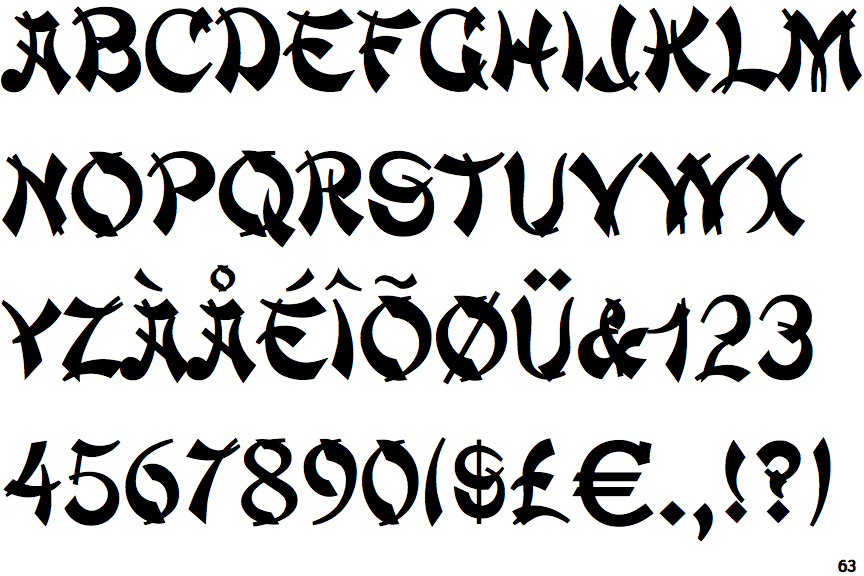
The Beauty Of Mandarin Fonts
Mandarin fonts are some of the most beautiful and elegant typefaces available in the world today. Whether you’re looking for a font to use in a business document or a personal project, Mandarin fonts are sure to make a statement. These fonts are used in almost every language and culture, including Chinese, Japanese, Korean, Thai, and many other Asian languages. The best thing about Mandarin fonts is that they come in a variety of styles, from bold and modern to traditional and classic. As a result, they offer something for everyone!
History of Mandarin Fonts
The origin of Mandarin fonts dates back centuries to the Han Dynasty in China. During this time, the traditional Chinese writing system was developed and became popular. As time went on, various writing styles developed around the world, with different cultures and countries adopting their own unique writing systems. In the 18th and 19th centuries, the Chinese writing system became popular in Europe and the United States, and the modern-day Mandarin font was born.
Features of Mandarin Fonts
Mandarin fonts are known for their beauty and simplicity. They are characterized by sharp, angular lines and small, intricate details. They are also usually quite thin and light, which gives them a delicate and elegant look. Additionally, many Mandarin fonts feature a wide range of characters, including both upper and lowercase letters, numbers, and symbols. These fonts are perfect for both formal and informal documents, and can be used for anything from business cards to websites.
Types of Mandarin Fonts
There are several different types of Mandarin fonts available, each with its own unique style and characteristics. Some of the most popular types include traditional Chinese characters, simplified Chinese characters, and calligraphic fonts. Each type of font has its own style, which can range from bold and modern to delicate and classic. Additionally, many Mandarin fonts are available in a variety of sizes and styles, so you can easily find one that fits your needs.
Using Mandarin Fonts
Mandarin fonts are perfect for creating a unique and stylish look for any project. They can be used for both personal and business documents, as well as websites and other digital media. Additionally, Mandarin fonts are often used in advertising and branding materials, as they help to create a unique and memorable brand identity.
If you’re looking for a font that is both unique and beautiful, Mandarin fonts are a great choice. With their delicate lines and intricate details, they will help you create a stunning and memorable look. Whether you’re looking for a font to use in a business document or a personal project, Mandarin fonts are sure to make a statement. Plus, with the wide variety of styles and sizes available, you’re sure to find one that fits your needs!